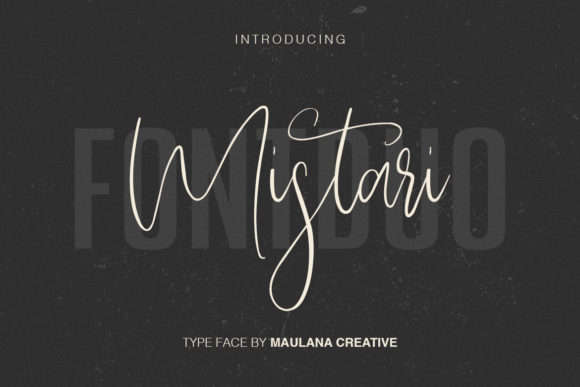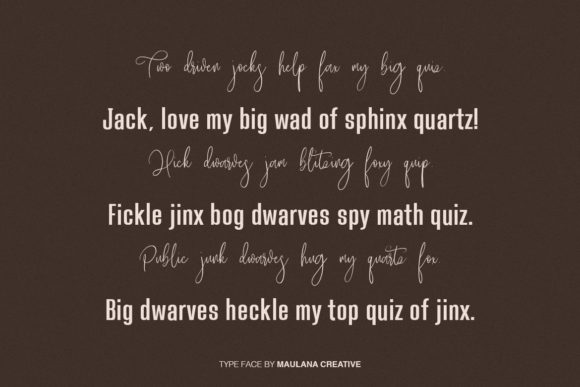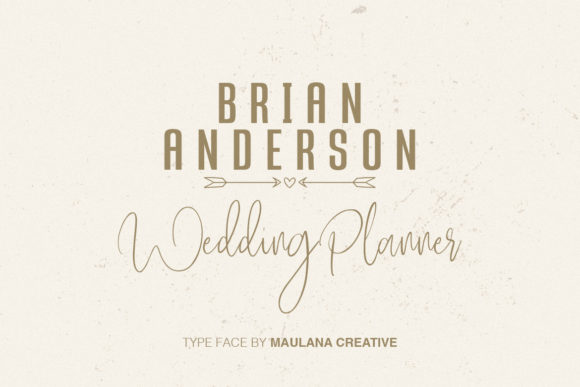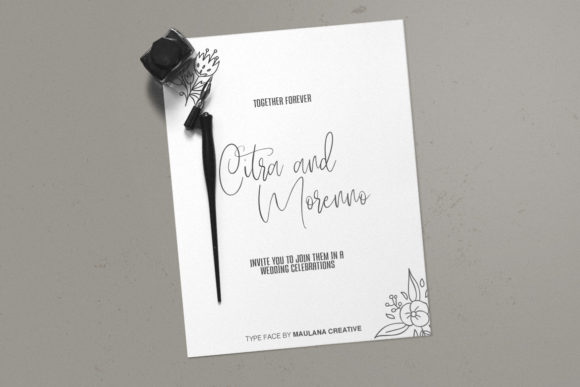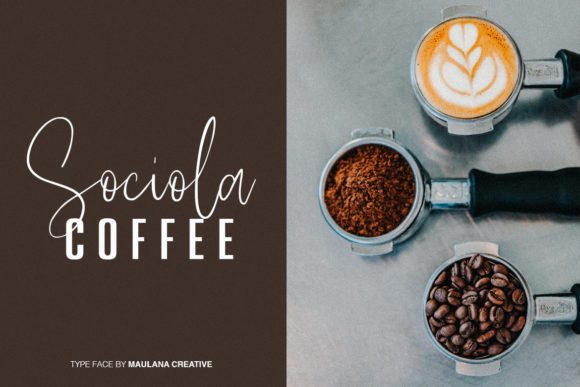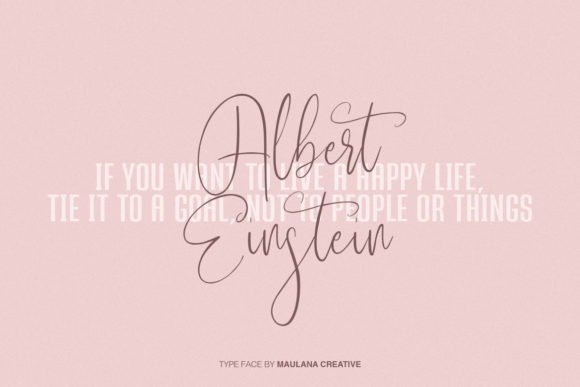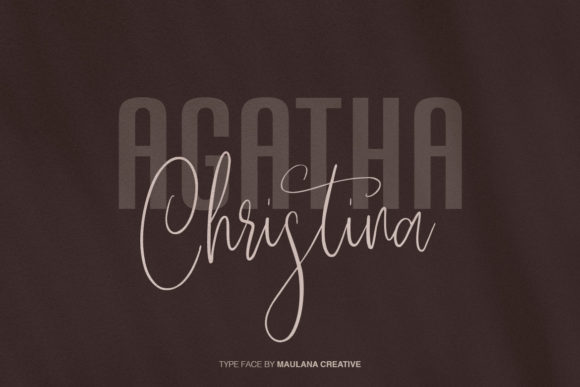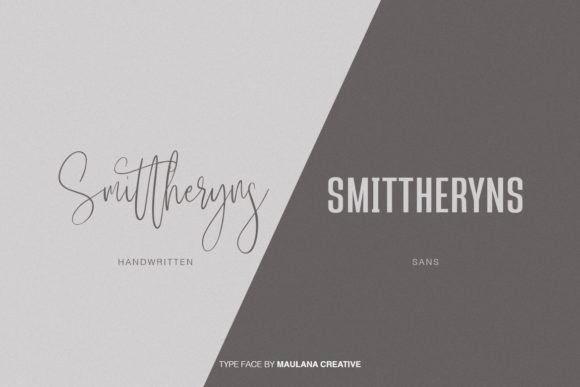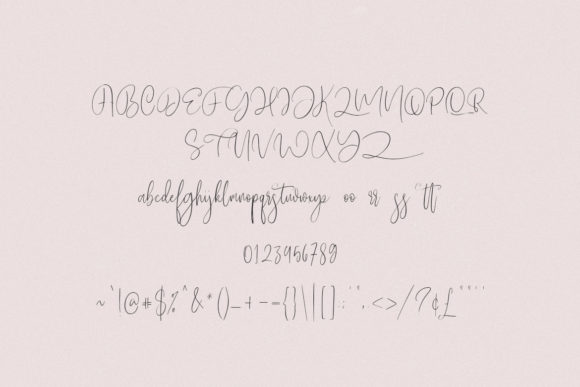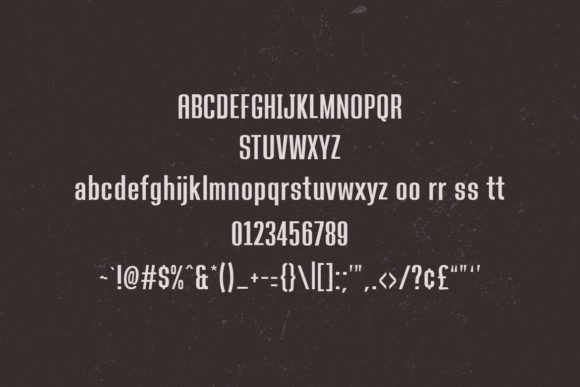
HomeScript FontsMistari Font Script Fonts Mistari Font FacebookXPinterestWhatsApp Mistari Font Poster 2 Mistari Font Poster 3 Mistari Font Poster 4 Mistari Font Poster 5 Mistari Font Poster 6 Mistari Font Poster 7 Mistari Font Poster 8 Mistari Font Poster 9 Mistari Font Poster 10 About Mistari Font Mistari brings together two gorgeous and fancy fonts that work incredibly well when combined. DOWNLOAD ON CREATIVE FABRICAThis font is sold and delivered by Creative Fabrica. Font Canyon may earn a commission if you buy through this link. People also explored Hearty Font Diamante Font The Street Font Laughs Qhuan Font Majonu Font Magnolia Font Envelope Font Madalina Font Bestallie Font 344 0 TagsMistari Font Previous articleChillout FontNext articleMilly Signature Font LEAVE A REPLY Cancel reply Comment: Please enter your comment! Name:* Please enter your name here Email:* You have entered an incorrect email address! Please enter your email address here Website: Save my name, email, and website in this browser for the next time I comment. Personal Use Free Bellarin Personal Use Free Read more about this font Cherry Ai Personal Use Free Read more about this font The Most Beautiful Gift Personal Use Free Read more about this font Fuixg Personal Use Free Read more about this font BLOG Best Fonts for YouTube Videos: Make Your Thumbnails Stand Out Best Fonts for YouTube Videos: Make Your Thumbnails Stand Out Choosing the right font can make a massive difference in how your YouTube videos perform.... Top 7 Google Fonts Alternatives for Faster and Privacy-Friendly Web Design (2025) Top 10 Handwritten Fonts That Elevate Your Designs Exploring Font Trends